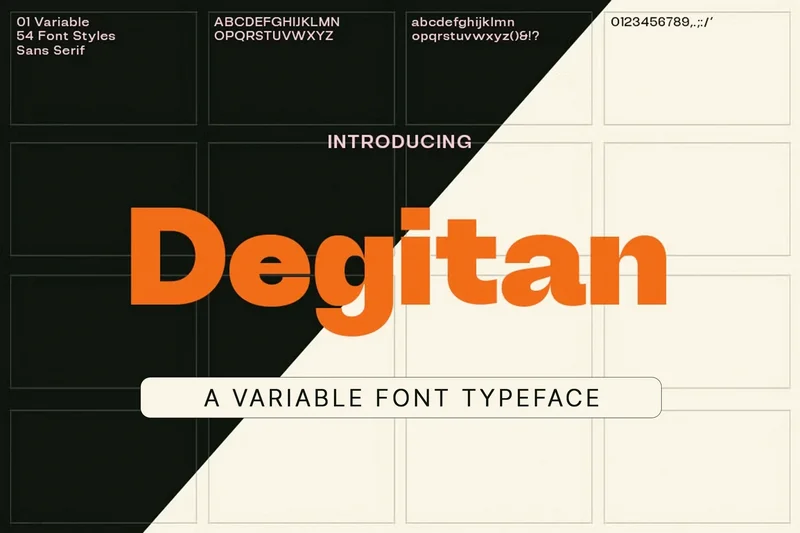
Degitan
Degitan is a modern variable font typeface featuring a clean sans serif style. With 54 font styles packed into one versatile typeface, Degitan offers full flexibility for designers looking for both structure and creativity. Its character set includes uppercase and lowercase alphabets, numerals, punctuation, and special symbols – making it ideal for branding, headlines, UI/UX design, and editorial projects. The font showcases a bold, geometric aesthetic with smooth curves and strong lines, perfect for making a visual impact while maintaining readability. Whether you’re going for minimalist clarity or eye-catching design, Degitan adapts to your needs.